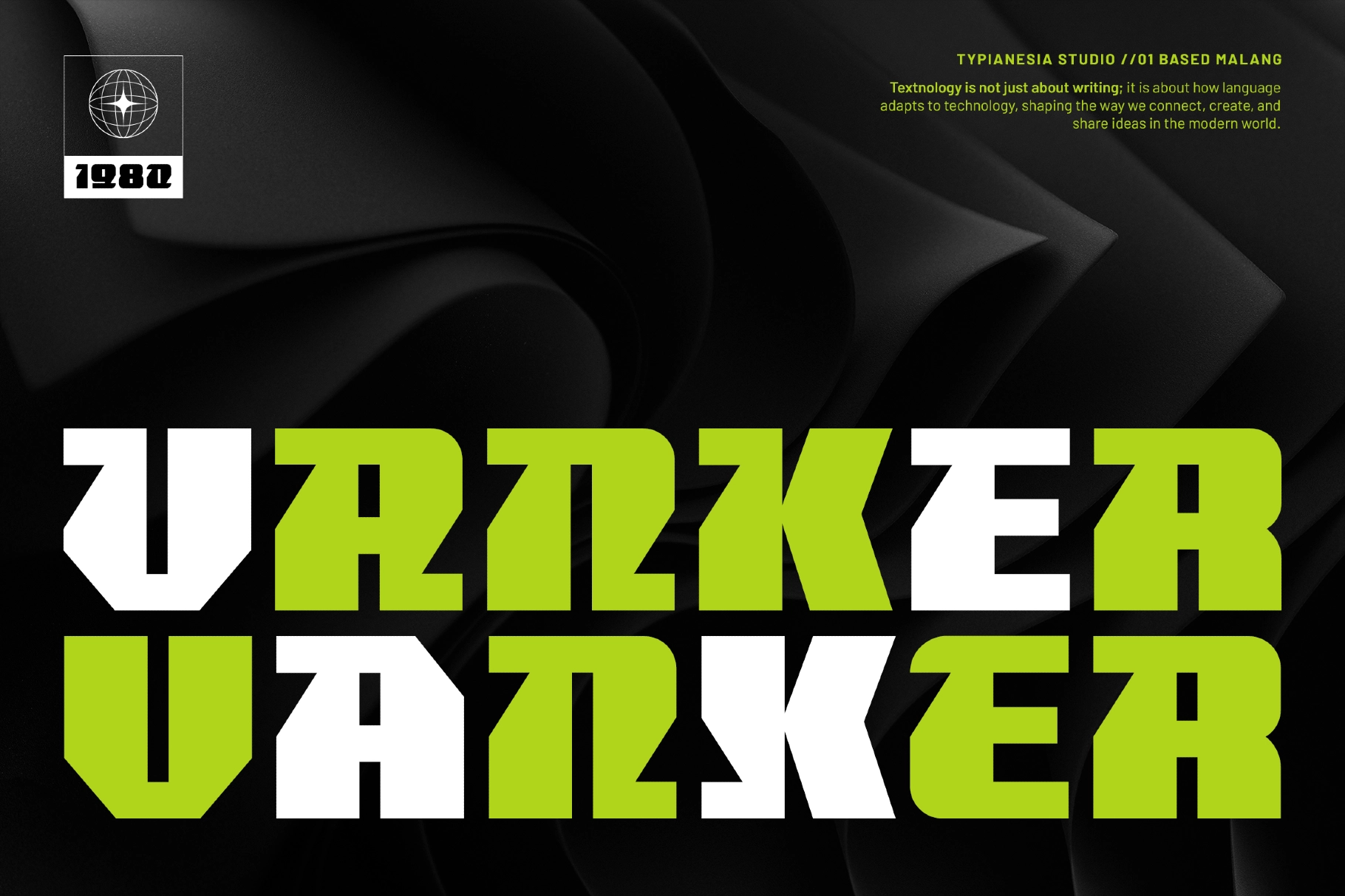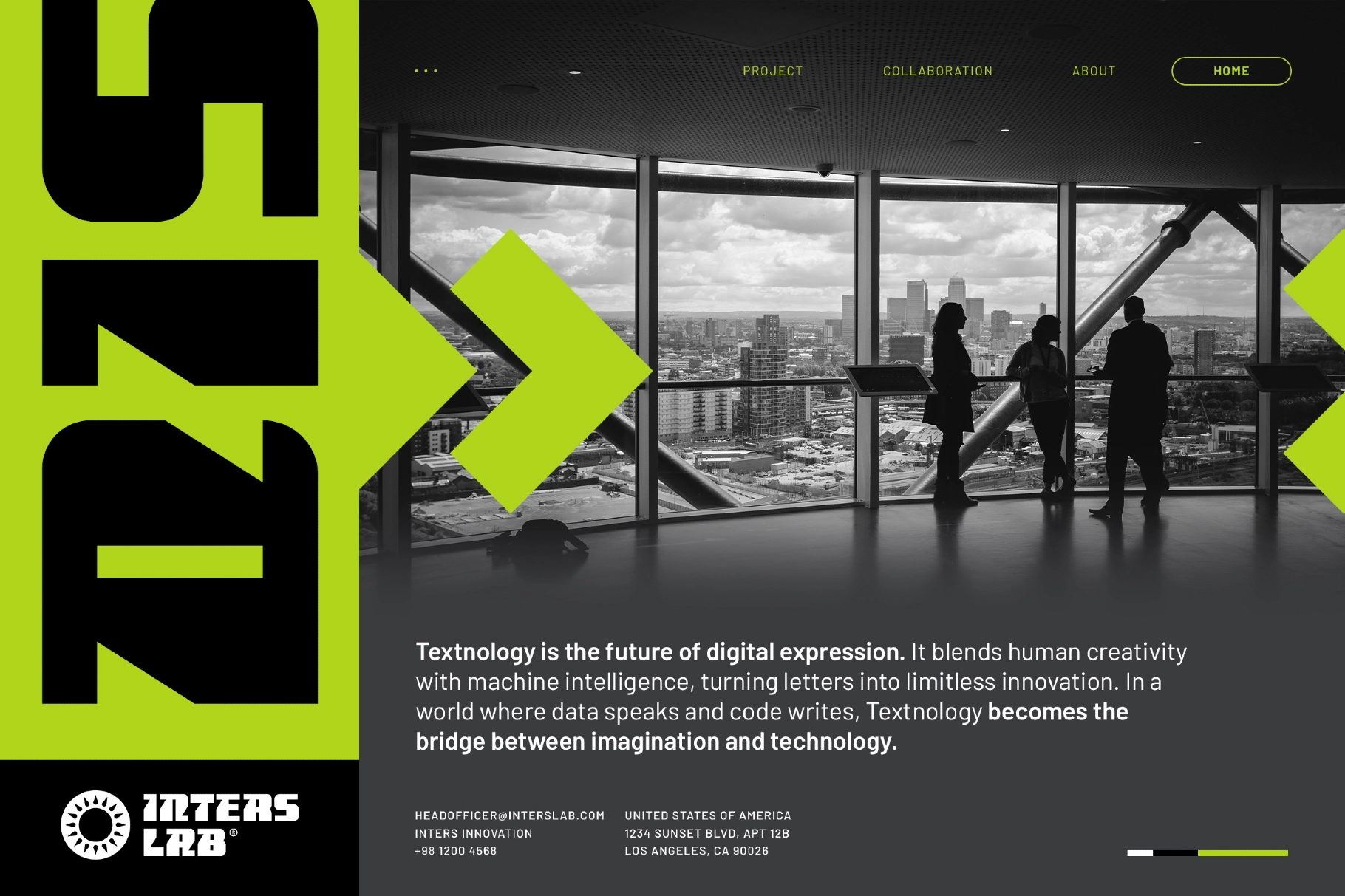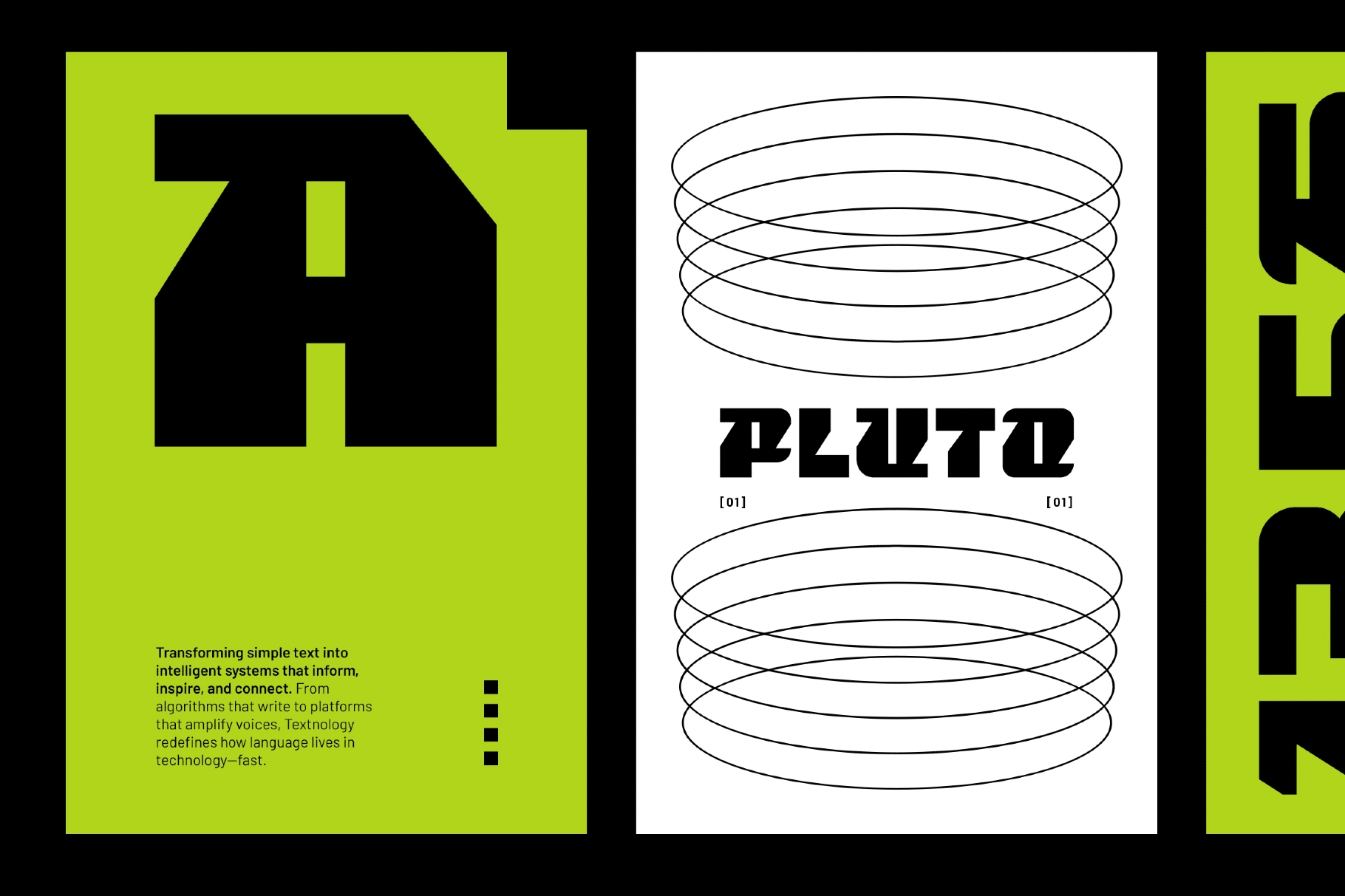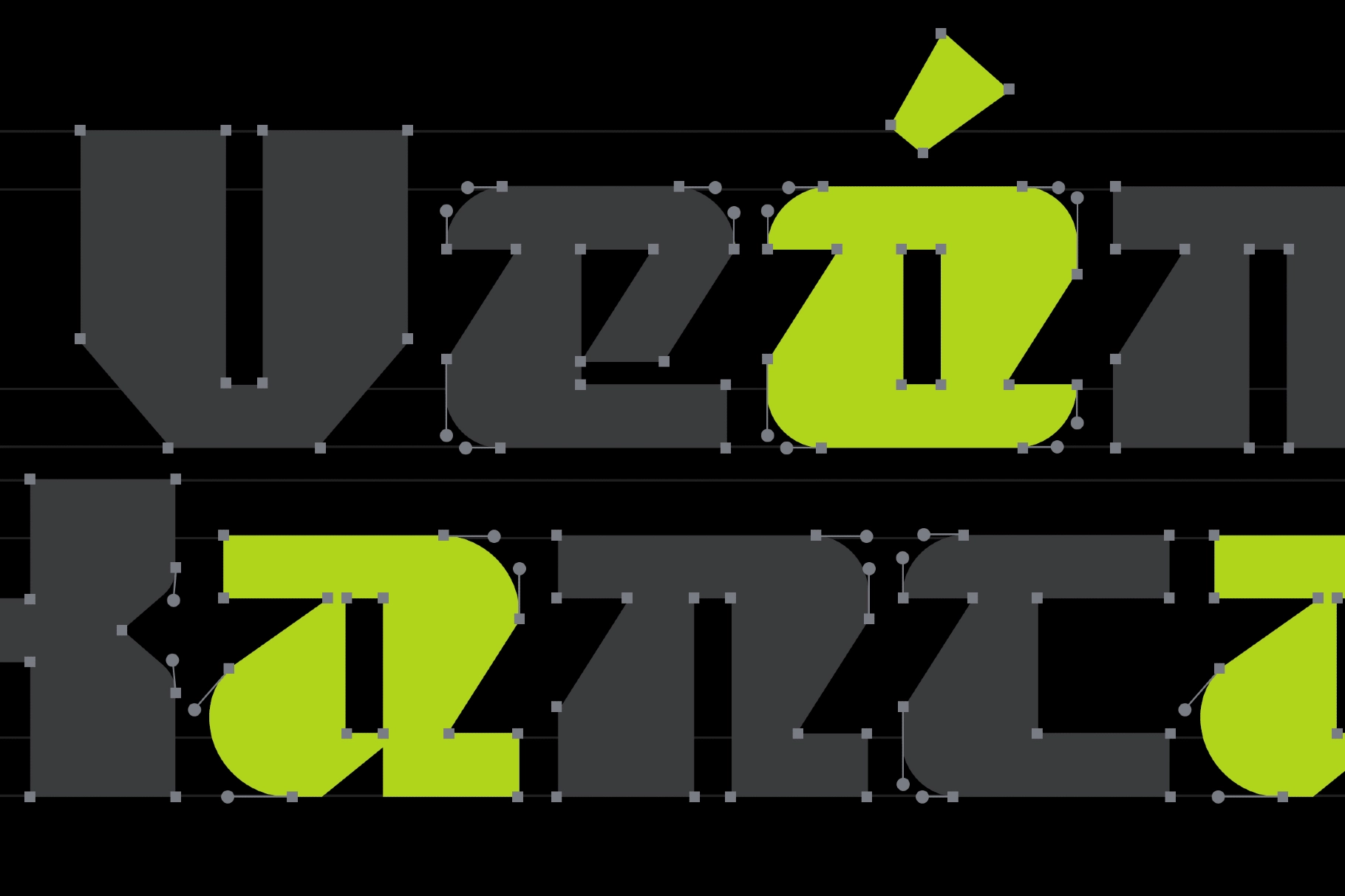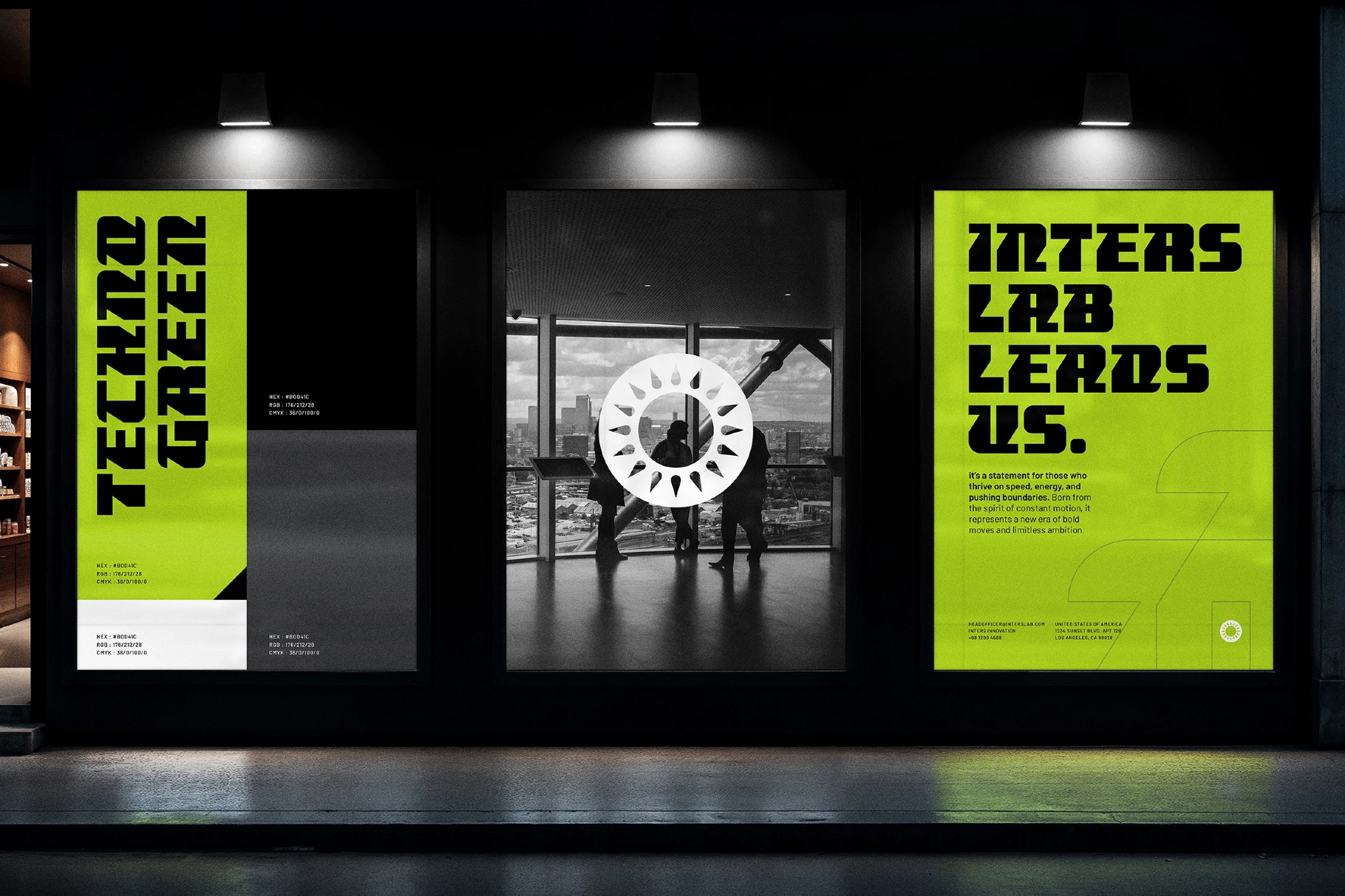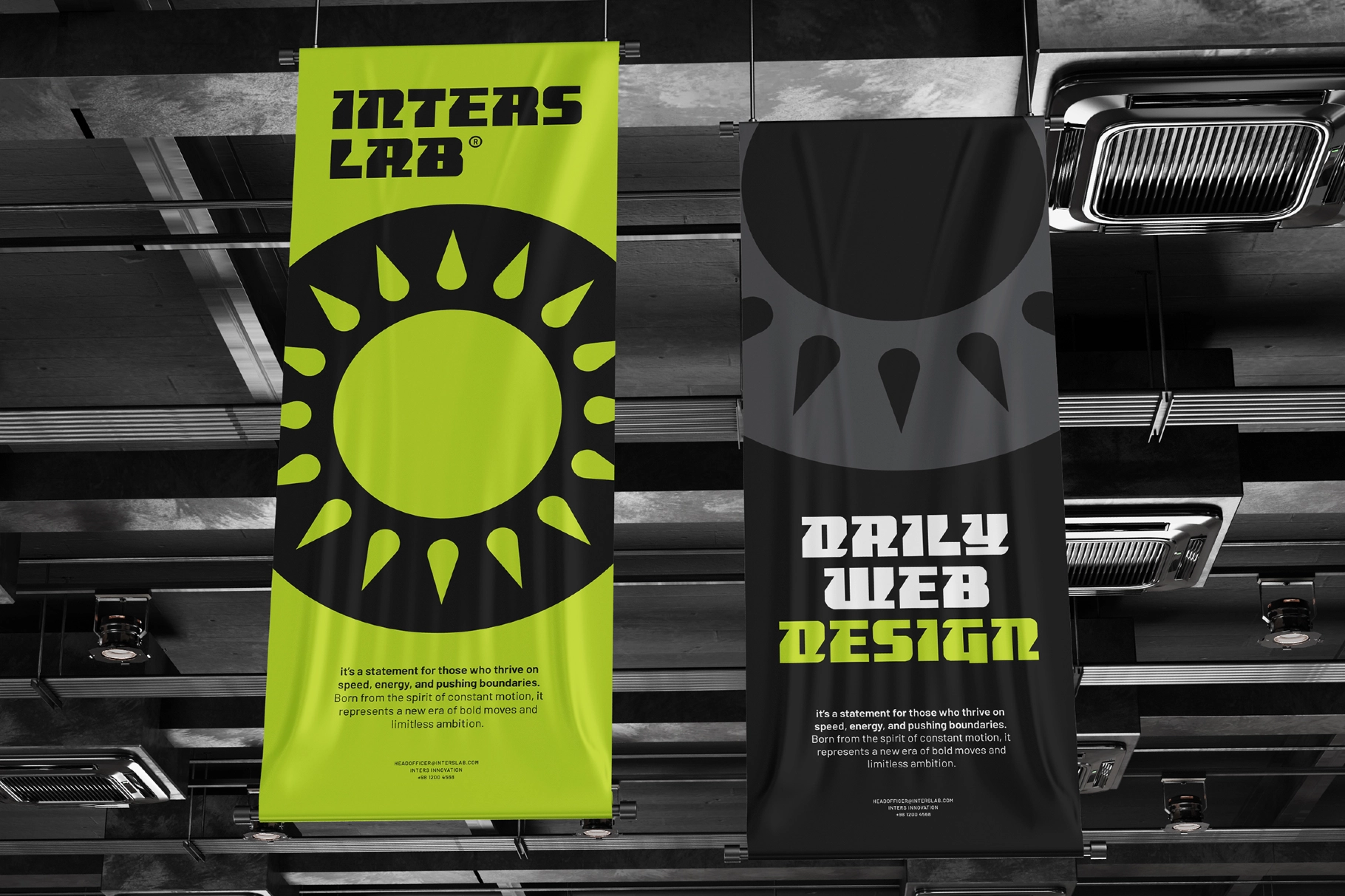
Vanker - Modern Futuristic Sci-Fi Game Font
Vanker - Modern Futuristic Sci-Fi Game Font is a powerful display typeface built for bold digital impact. With its sharp geometric construction, angular cuts, and solid industrial forms, Vanker captures the essence of advanced technology and futuristic gaming aesthetics. The strong structure and dynamic proportions create a commanding presence that feels mechanical, modern, and forward-driven.
Designed to dominate large headlines and high-energy compositions, Vanker delivers clarity and strength across game interfaces, branding systems, posters, and digital environments. Its sci-fi personality makes it perfect for projects that demand a cutting-edge, tech-oriented visual identity.